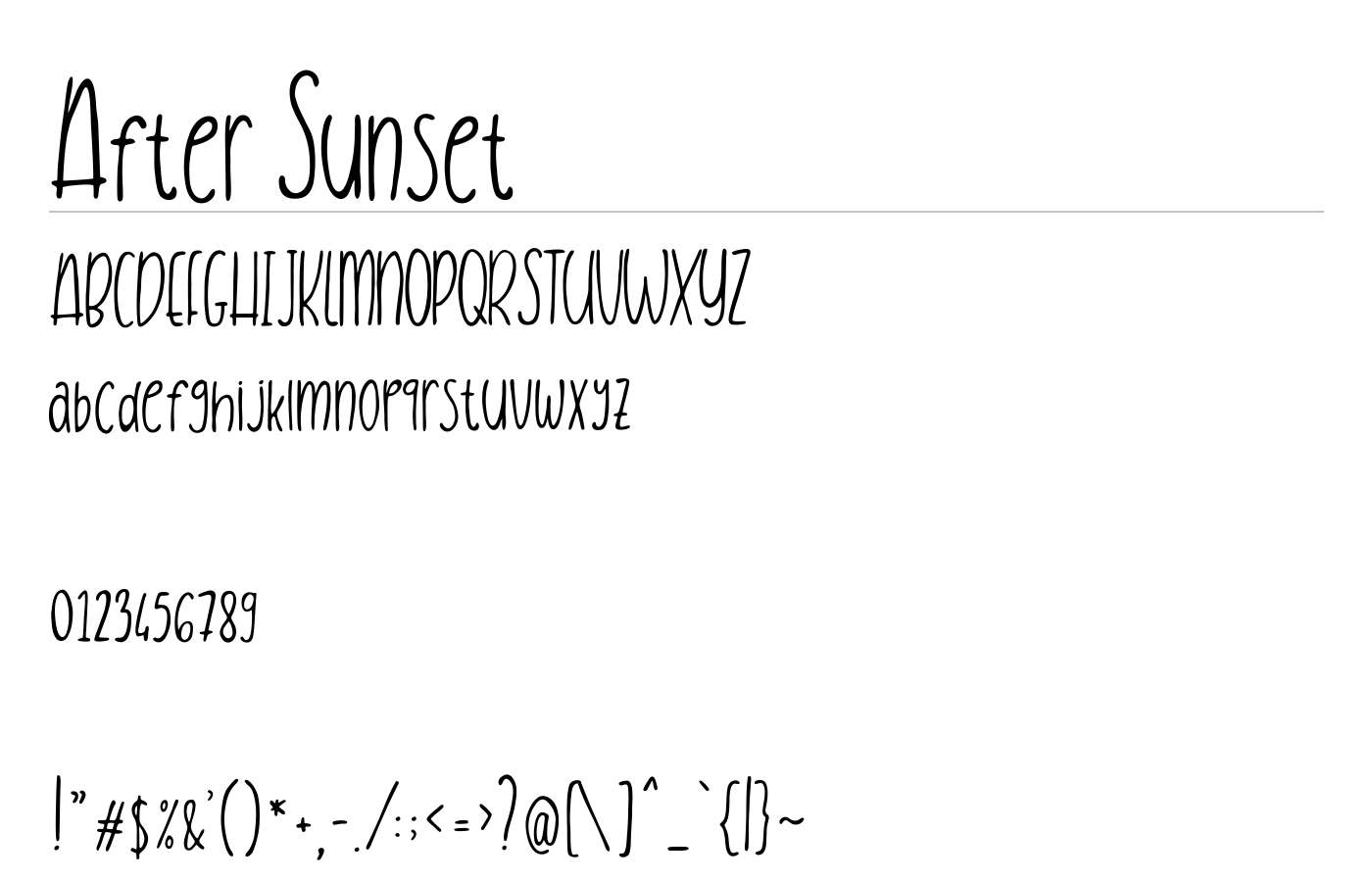
After Sunset is a tall, narrow sans serif font with a playful, hand-drawn style that feels casual and approachable. Its thin strokes and quirky letterforms give it a light, airy appearance, making it ideal for informal designs, creative branding, and friendly headlines. This font works well in projects that want to convey a relaxed, youthful vibe with a touch of personality.
After Sunset Font
About After Sunset Font
| Font family | After Sunset Font |
| Designer | Creatype Studio Co. |